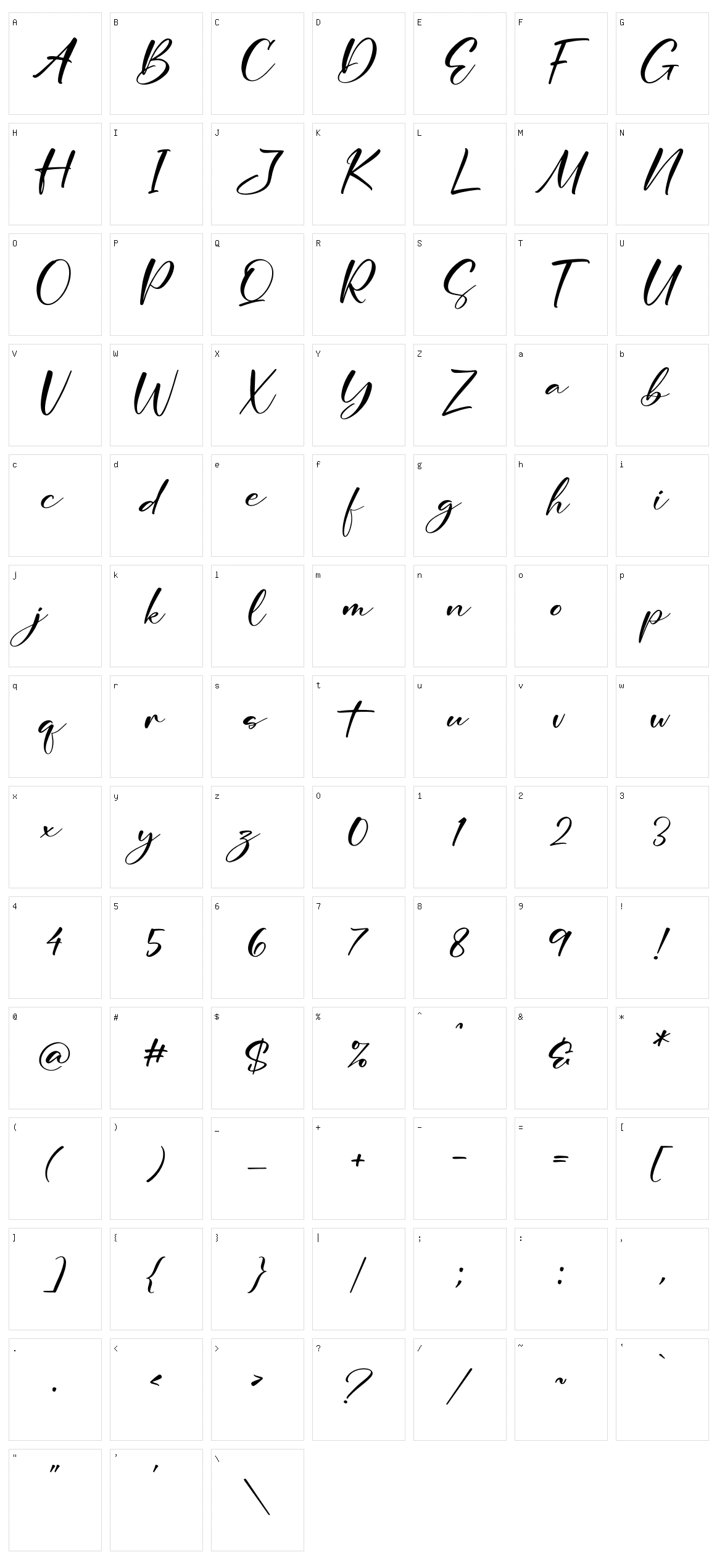
The free font Shogeking Oniki is carefully designed by Integritype Studio, showcasing a thoughtful balance of creativity and usability and falls under the Script font style. When you download the ZIP file, it contains only 41.07 KB of font files, making it lightweight and quick to download. Please review the license details below to understand permitted usage and distribution rights. If license information is not available, we recommend using this font for personal projects only or contacting the author directly for commercial usage permissions.